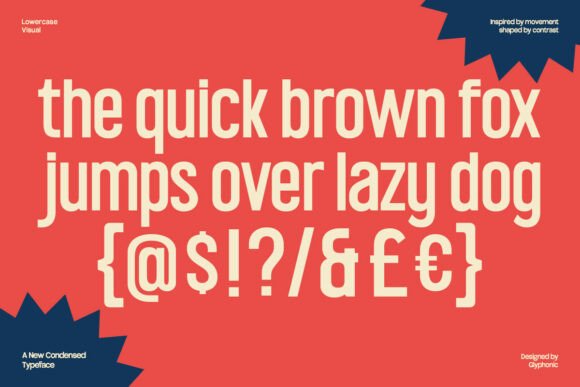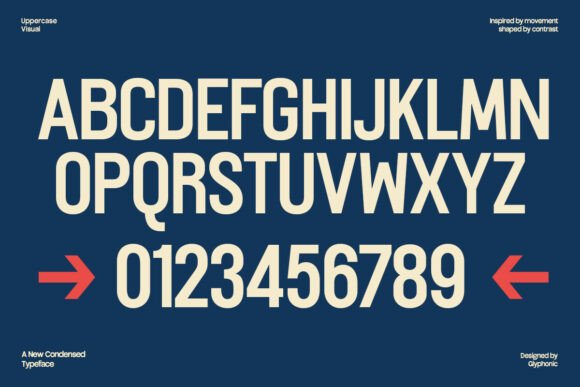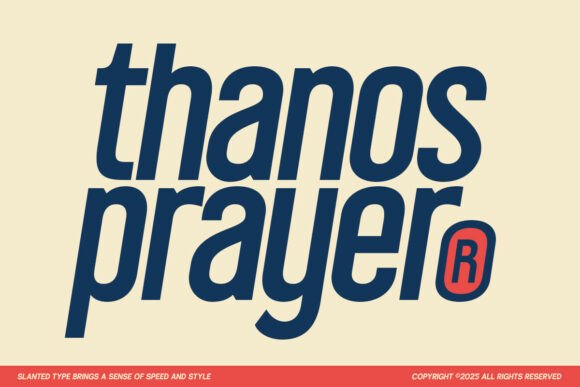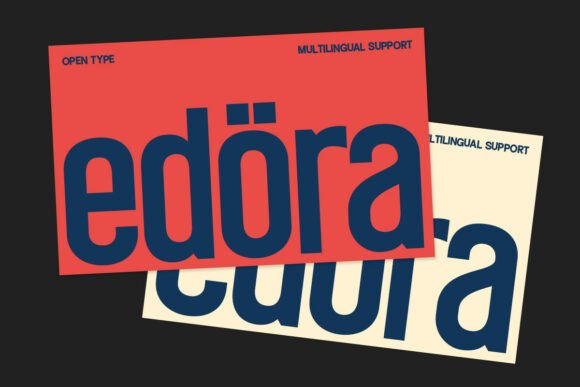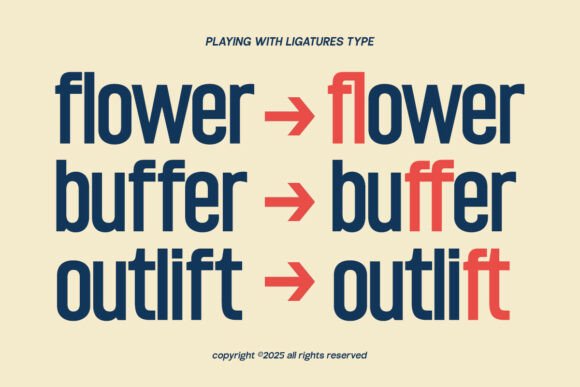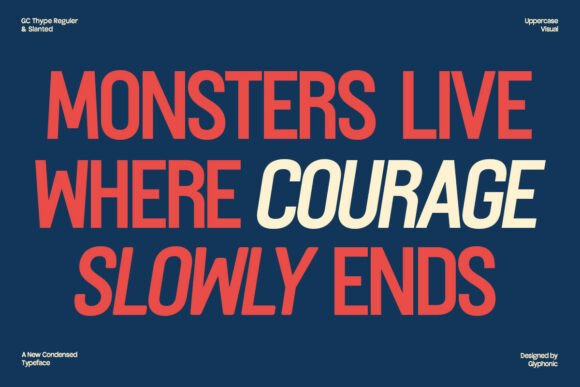
Introducing GC Thype Font: The Epitome of Modern Minimalism
In the realm of typography, a well-crafted font can elevate a design from ordinary to extraordinary. For designers and crafters seeking a typeface that embodies modern minimalism with a strong visual presence, GC Thype Font is an exceptional choice. This contemporary condensed display sans-serif typeface is meticulously designed to make a confident and memorable impression in various applications, including headlines, branding, posters, logos, packaging, and editorial layouts.
Design Characteristics of GC Thype
GC Thype Font boasts several distinctive design characteristics that set it apart from other typefaces. Its tall letterforms and tight spacing contribute to a sleek and streamlined appearance, perfect for creating visually striking compositions. The sharp terminals and clean geometric structure add a touch of sophistication, making it an ideal choice for fashion, streetwear, technology, and creative applications.
One of the standout features of GC Thype is its refined aesthetic, which brings clarity and style to any visual composition. The font’s condensed design allows for efficient use of space, making it perfect for headlines, titles, and short paragraphs. The clean lines and geometric structure also ensure excellent legibility, even at smaller sizes.
Key Features of GC Thype Font
- Contemporary Minimalism: GC Thype combines modern minimalism with a strong visual presence, making it perfect for designs that require a clean and sophisticated look.
- Tall Letterforms: The font’s tall letterforms and tight spacing create a sleek and streamlined appearance.
- Sharp Terminals: The sharp terminals add a touch of sophistication, making GC Thype suitable for high-end applications.
- Clean Geometric Structure: The font’s clean geometric structure ensures excellent legibility and a distinctive contemporary character.
- PUA Encoded: GC Thype is PUA encoded, providing complete access to every glyph and swash for ease of use.
Applications of GC Thype Font
GC Thype Font is a versatile typeface that can be used in a wide range of applications, including:
- Headlines and Titles: The font’s condensed design and clean lines make it perfect for headlines and titles that require a strong visual presence.
- Branding and Logos: GC Thype’s distinctive character and refined aesthetic make it an excellent choice for branding and logos that require a modern and sophisticated look.
- Posters and Flyers: The font’s tall letterforms and sharp terminals create a visually striking composition, perfect for posters and flyers.
- Packaging and Editorial Layouts: GC Thype’s clean geometric structure and excellent legibility make it suitable for packaging and editorial layouts that require a clear and concise visual message.
Why Choose GC Thype Font?
For designers and crafters seeking a typeface that embodies modern minimalism with a strong visual presence, GC Thype Font is an exceptional choice. Its refined aesthetic, versatility, and excellent legibility make it perfect for a wide range of applications. With GC Thype, you can:
- Elevate Your Designs: GC Thype’s distinctive character and refined aesthetic can elevate your designs from ordinary to extraordinary.
- Save Time: The font’s PUA encoding provides complete access to every glyph and swash, saving you time and effort in your design process.
- Enhance Your Brand: GC Thype’s modern and sophisticated look can enhance your brand’s visual identity and create a lasting impression.
In conclusion, GC Thype Font is a contemporary condensed display sans-serif typeface that combines modern minimalism with a strong visual presence. Its refined aesthetic, versatility, and excellent legibility make it perfect for designers and crafters seeking a typeface that can elevate their designs and enhance their brand’s visual identity.